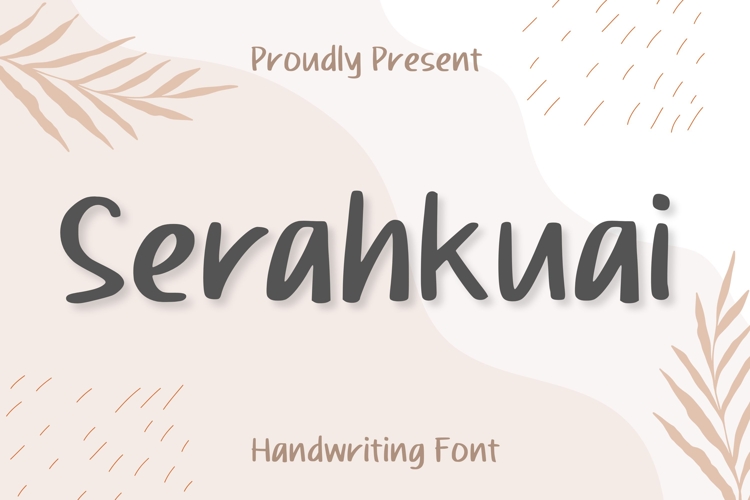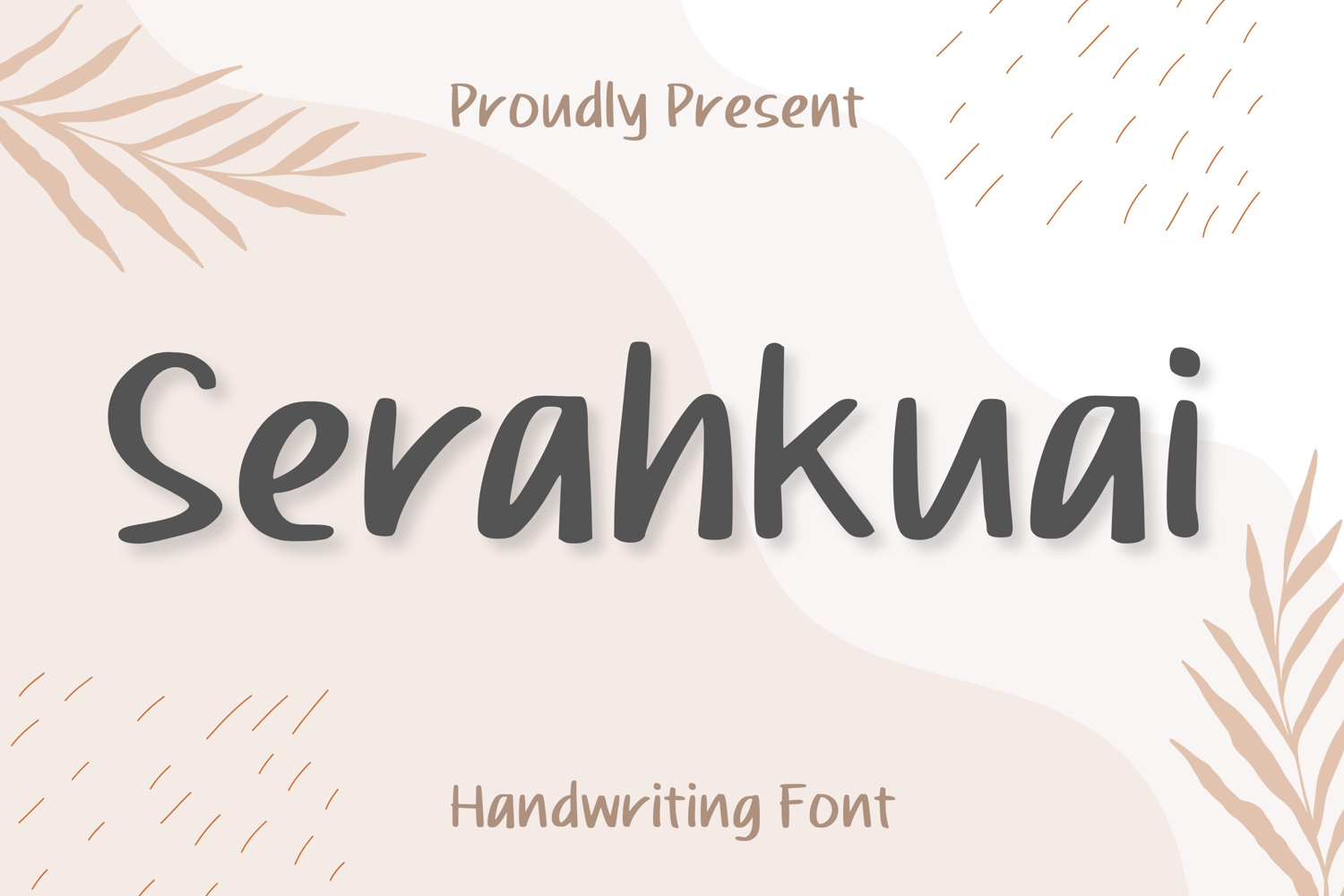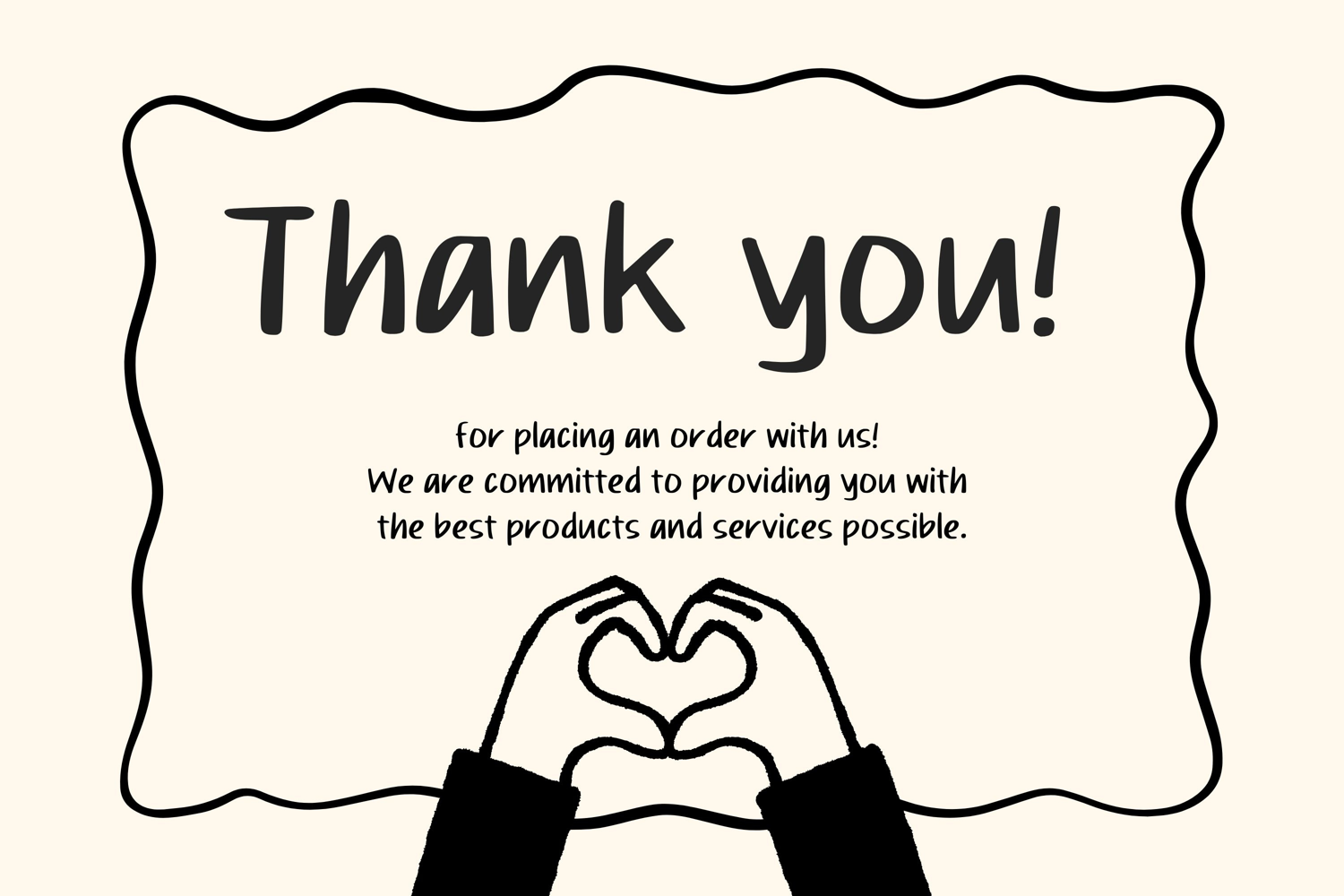
White Pinky
Immerse yourself in the simplicity and elegance of our Handwriting Font. Beautifully created, this aesthetic typeface effortlessly merges with your design and crafting projects, lending a unique, specialized touch. Amplify your graphical presentations with this delicate and graceful font, perfect for those seeking a refined yet creative style. With its handwritten charm, it breathes life into text and creates a captivating visual harmony for your audience. Stand out from the crowd with this stylish, handcrafted font, designed with precision for typography enthusiasts.